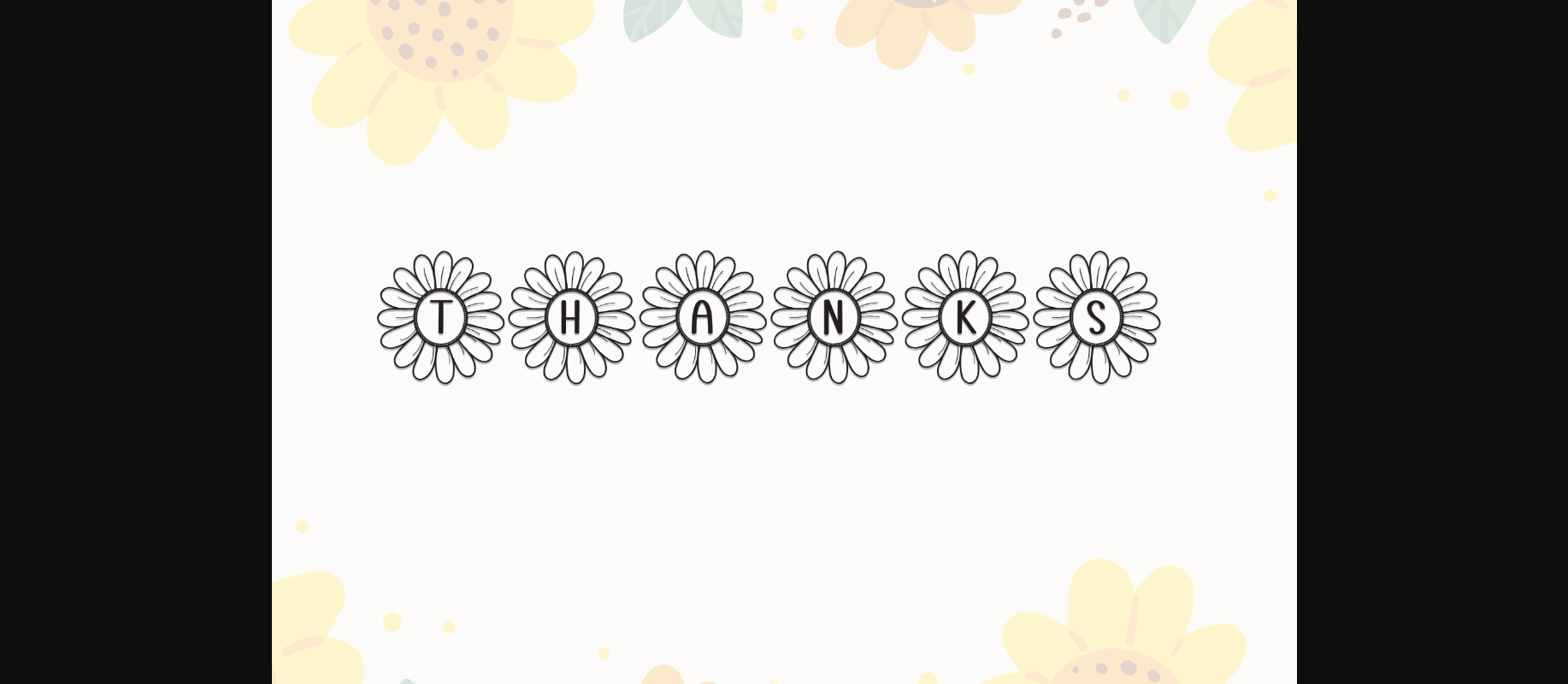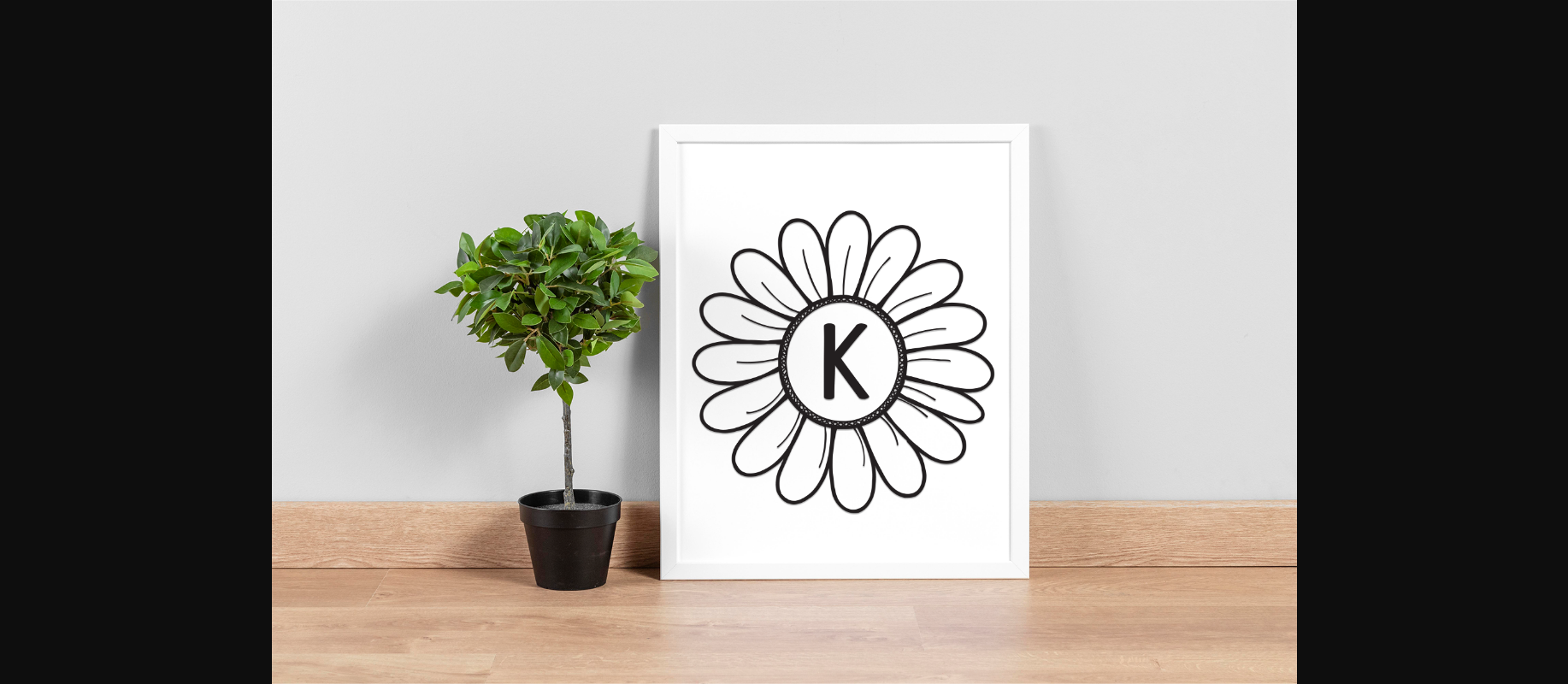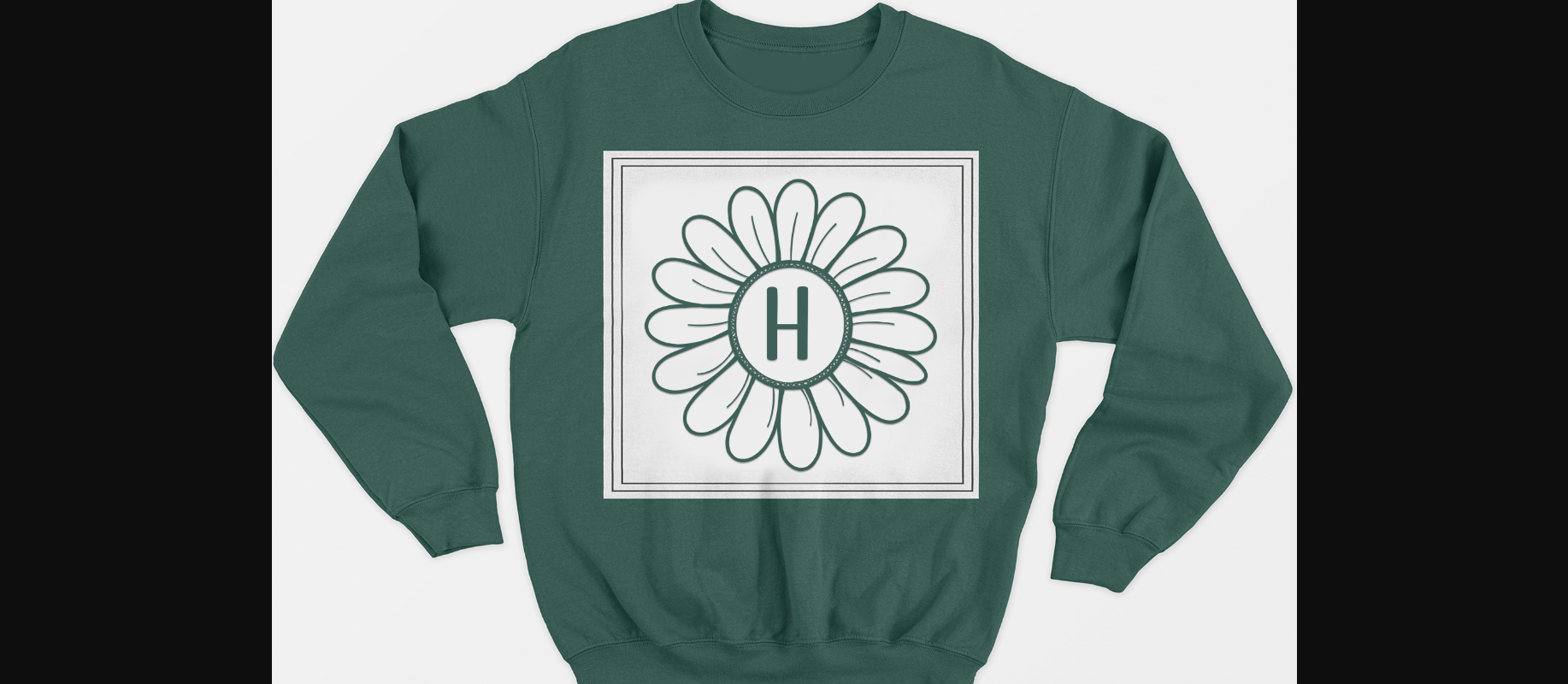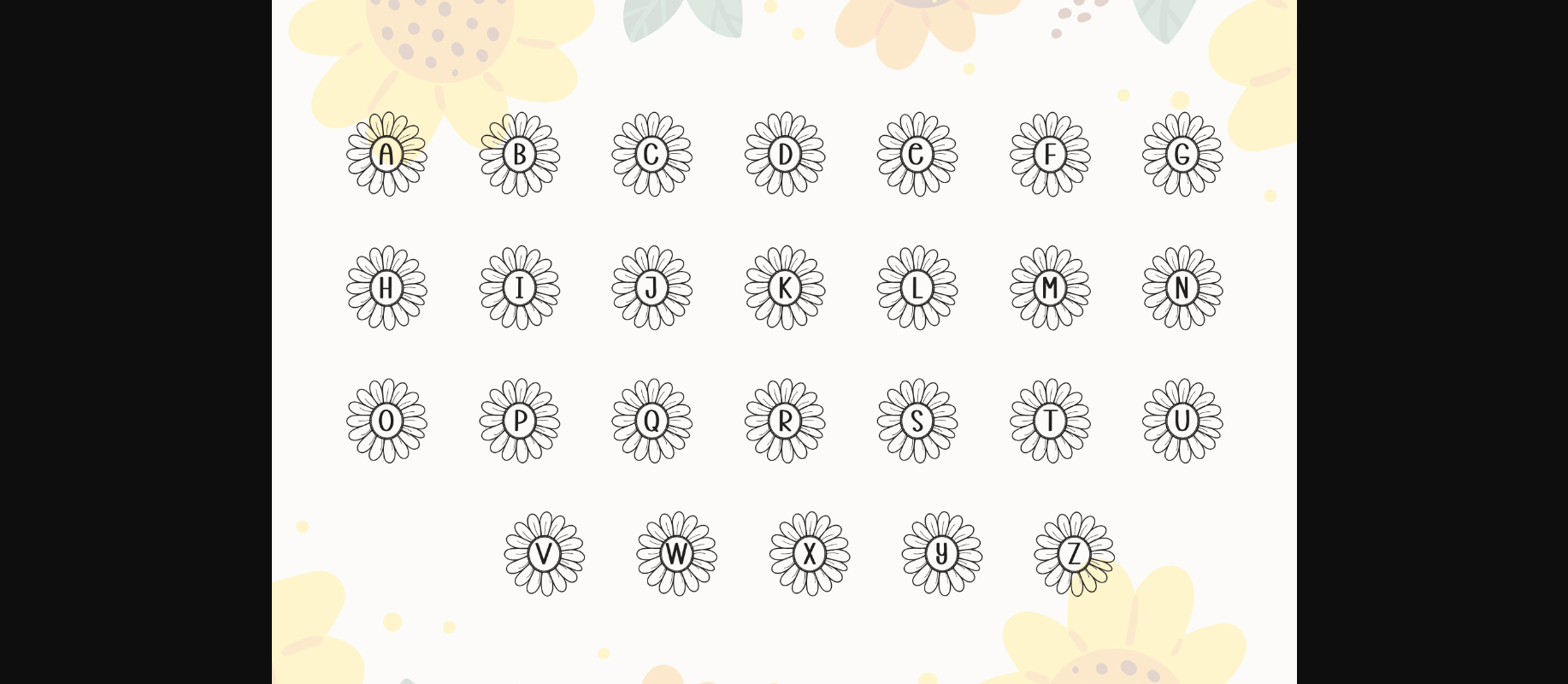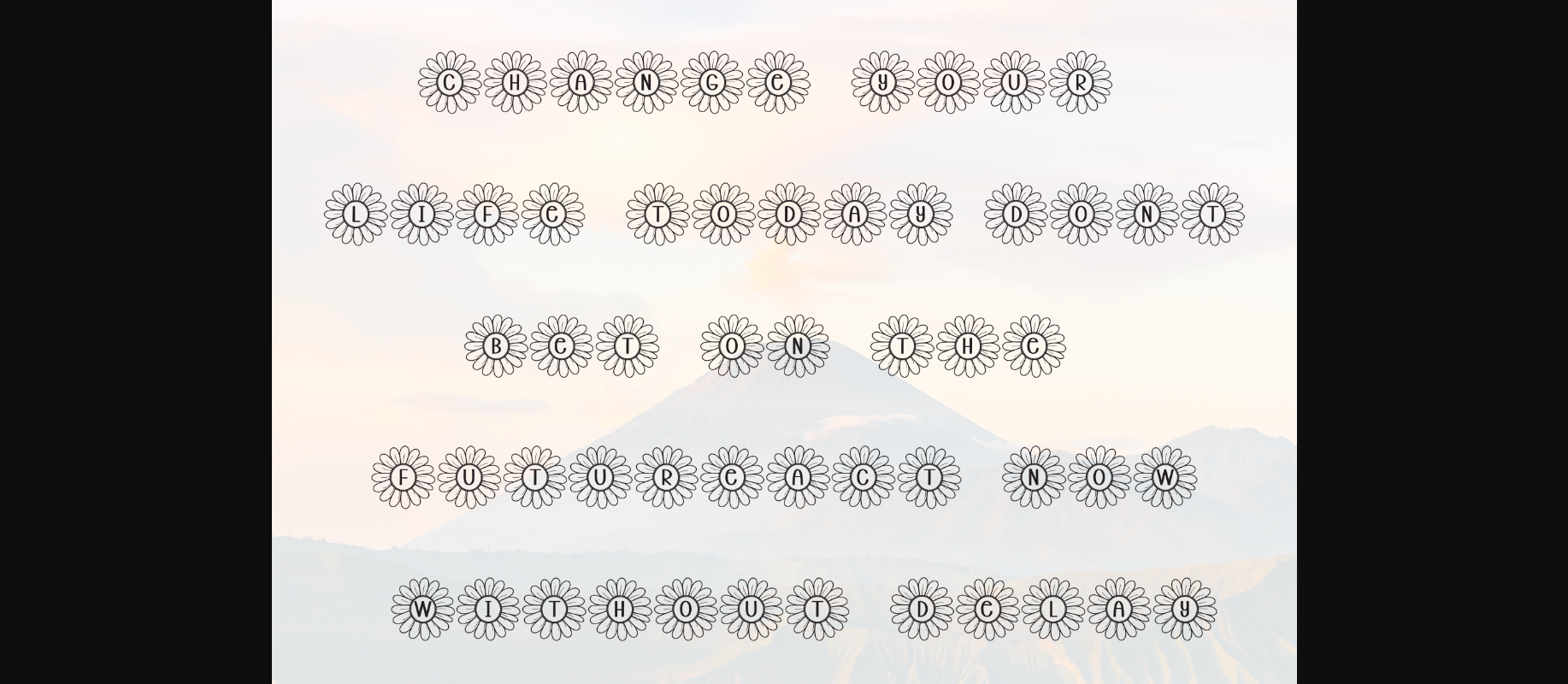
About Sunflower Monogram Font
The sunflower forms a charming frame around personalized monograms, adding a touch of natural beauty and warmth to any artwork or project. The sunflower’s petals create a cheerful atmosphere, making it a perfect choice for invitations, greeting cards, or decorative elements with a personal touch.